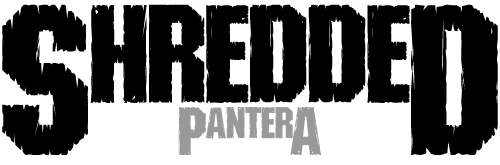
Introduction to Shredded Font
Have you ever stared at a blank canvas, waiting for inspiration to strike? For designers, that moment is a familiar and often thrilling experience. It’s when the possibilities seem endless, and the only limit is your imagination. For font enthusiasts, that moment might come when they stumble upon a unique and high-quality design resource that elevates their creative project to the next level.
One such resource is the Shredded Font, a free download created by TracerTong Fontworks. This eroded typeface is based on the iconic band Pantera, and its transparent background adds a touch of sophistication to any design. Whether you’re a seasoned designer or just starting out, the Shredded Font is a valuable addition to your toolkit, offering a high-quality design resource that’s sure to inspire.
Key Features of Shredded Font
- High-quality design resource ideal for creative projects, offering a unique and eye-catching aesthetic.
- Features a high-resolution design, perfect for printing or using in high-definition digital projects.
- Includes a range of glyphs and characters, making it suitable for a variety of creative projects, from logos to typography-based designs.
- Designed to be highly versatile, allowing designers to experiment with different layouts and compositions.
Honest Review: Shredded Font
As a designer, I’m always on the lookout for high-quality design resources to elevate my creative projects. Recently, I stumbled upon the Shredded Font, and I’m excited to share my thoughts on this unique font.
What works well: ✨ The Shredded Font is incredibly versatile, making it perfect for a wide range of design projects, from logos to typography-heavy designs. Its unique texture and shredded effect add an edgy touch that’s sure to grab attention.
- Perfect for creative projects that require a bold, edgy look
However, there are some limitations to consider: ⚠️ The Shredded Font may not be suitable for projects that require a clean, minimalist look. Additionally, the font’s transparent background can sometimes make it difficult to work with.
Overall, I’m impressed with the Shredded Font. Its unique design and versatility make it a valuable addition to any designer’s toolkit. If you’re looking for a bold, eye-catching font to elevate your creative projects, the Shredded Font is definitely worth checking out.
Tips for Getting the Most Out of Shredded Font
To get the most out of the Shredded Font, use it in conjunction with other design resources, such as images and shapes. Experiment with different font sizes, colors, and arrangements to create visually appealing graphics. Additionally, use the font’s transparent background to create layered designs.
Common Use Cases for Shredded Font
The Shredded Font is commonly used in creative projects, such as graphic design, digital art, and typography. Its high-quality design and transparent background make it an ideal choice for creating visually appealing graphics and designs.